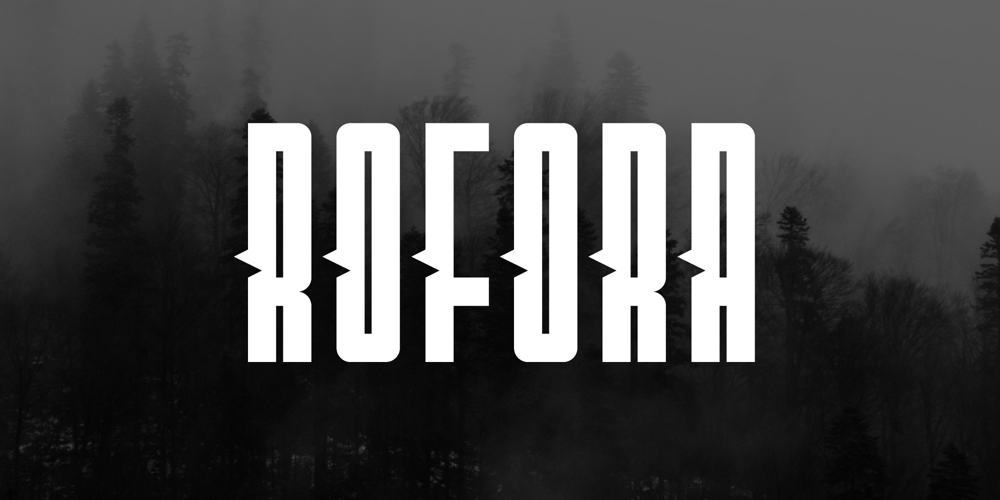
Rofora
Rofora font
Rofora Font Family was designed by Iwan Alwan and published by Artiveko. Rofora contains 2 styles and family package options. Rofora, a dynamic font meticulously crafted by Iwan Alwan.With its sleek design and condensed spacing, Rofora exudes professionalism and versatility, making it an ideal choice for various applications including sports, business, and consulting. Its multilingual support ensures seamless communication across different languages, while its bold yet elegant aesthetic adds a touch of sophistication to any project.Whether you’re crafting a logo, designing marketing materials, or refining your brand identity, Rofora empowers you to make a lasting impression with its modern flair and timeless appeal. Experience the seamless fusion of style and functionality with Rofora – the ultimate choice for those who demand excellence in typography.